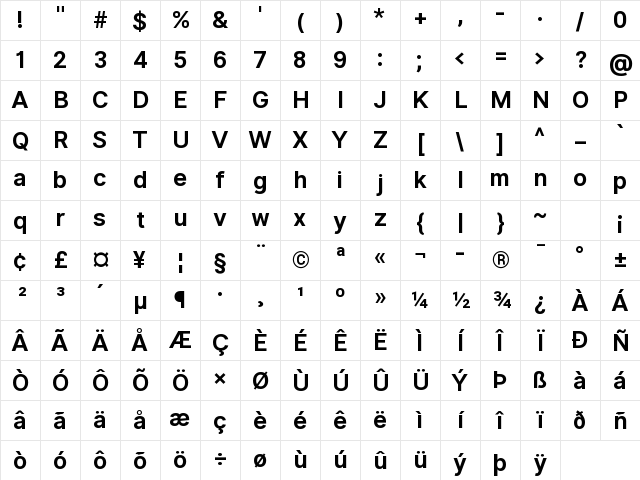
Inter UI Bold Free Font
Inter UI Bold
Foundry: rsms
Designer: Rasmus Andersson
Complete Inter UI Bold glyph index. Displaying only characters natively supported by Inter UI Bold font.
Design Context for Inter UI
Inter UI is a composed and adaptable typeface that performs quietly and consistently across a wide range of design contexts. Its bold stroke weight gives it real presence on the page.